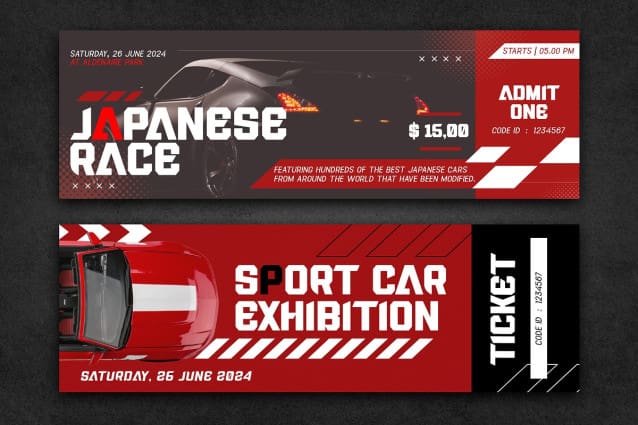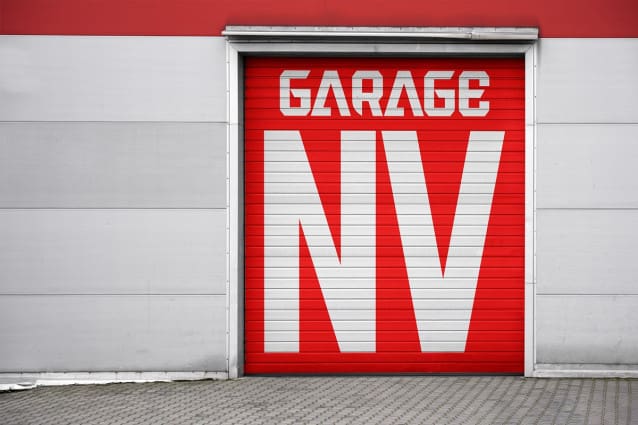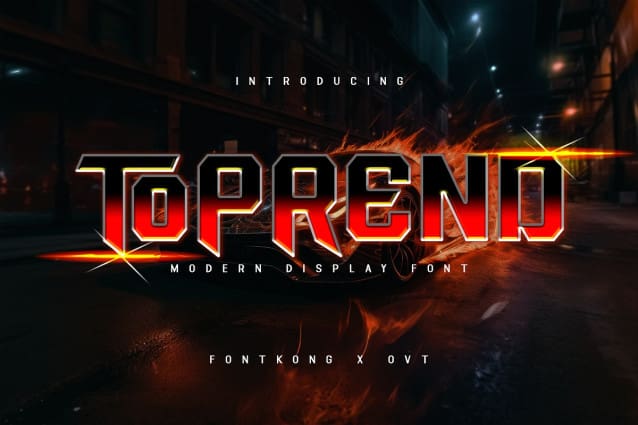
Toprend Display Font
Toprend Display Font a modern display font designed to make a statement. With its bold lines and contemporary style, Toprend adds a touch of sophistication and flair to any design project.
Crafted with precision and attention to detail, Toprend Display is perfect for creating eye-catching headlines, posters, logos, and more. Its clean and geometric shapes exude confidence and modernity, making it the ideal choice for projects that demand attention.
Featuring uppercase letters, numbers, and punctuation marks, Toprend Display offers versatility and flexibility for all your creative needs. Whether you’re designing for print or digital media, this font ensures that your message stands out with boldness and impact.